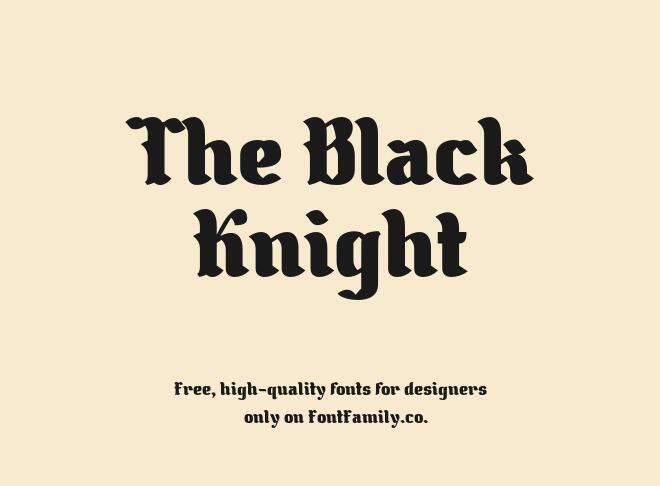
The Black Knight Font
The Black Knight Font, designed by Designs by Knight, is a rustic and bold display font with a vintage twist. Released in 2018, this font pays homage to medieval typography while maintaining a modern appeal. Its thick strokes and slightly eroded edges give it an authentic, hand-crafted feel, making it perfect for logos, posters, or any design project that requires a touch of old-world charm. The Black Knight Font is reminiscent of classic chiseled stone lettering seen in ancient castles, yet it offers a unique style that sets it apart from traditional serif fonts. Its character set includes a full range of uppercase and lowercase letters, numerals, punctuation, and special characters. Free for personal use, The Black Knight Font is a great choice for designers looking to add a vintage and bold touch to their creative projects.